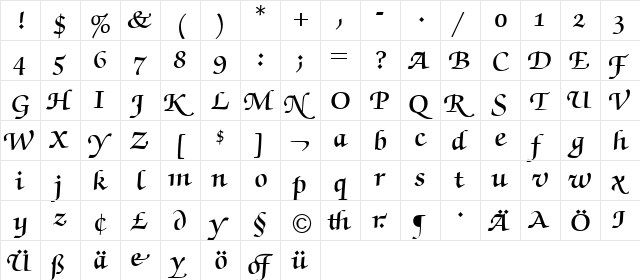
ZapfChancerySwashBQ-Demi Medium Font Preview
ZapfChancerySwashBQ-Demi Medium
Design Context for ZapfChancerySwashBQ-Demi Typeface
ZapfChancerySwashBQ-Demi brings a calligraphic fluidity to the page — its connecting strokes and expressive curves give it an unmistakably human quality.